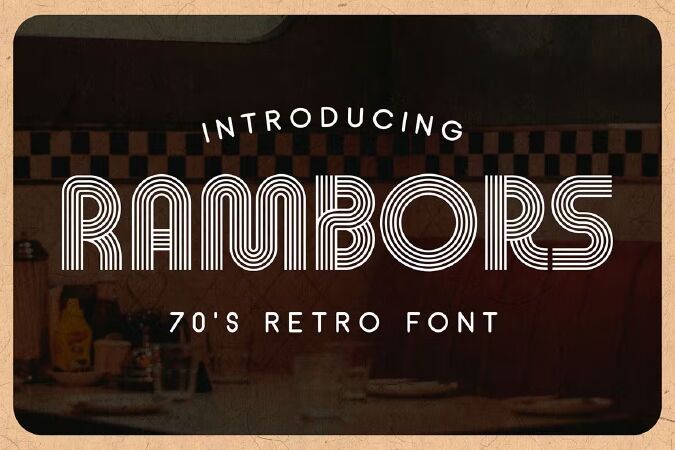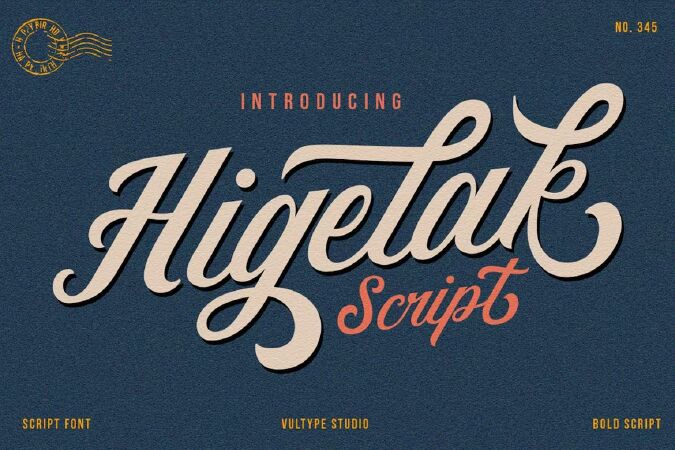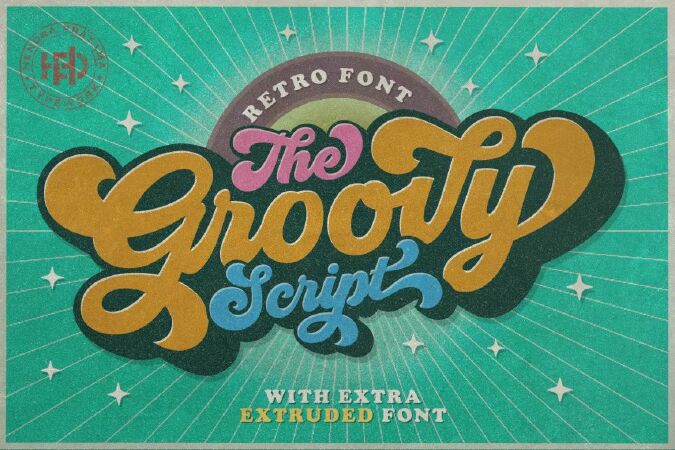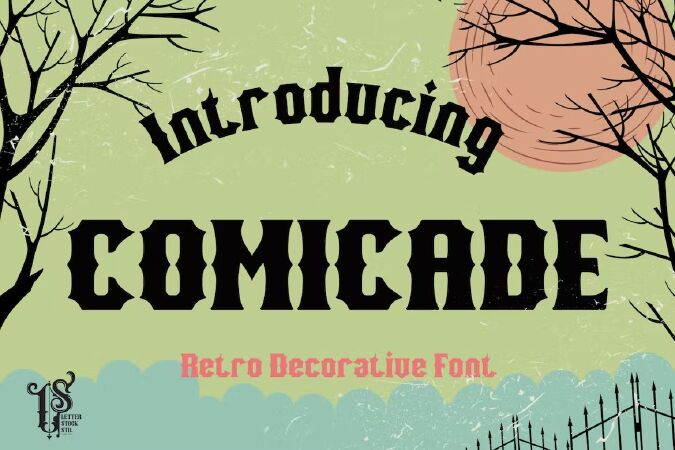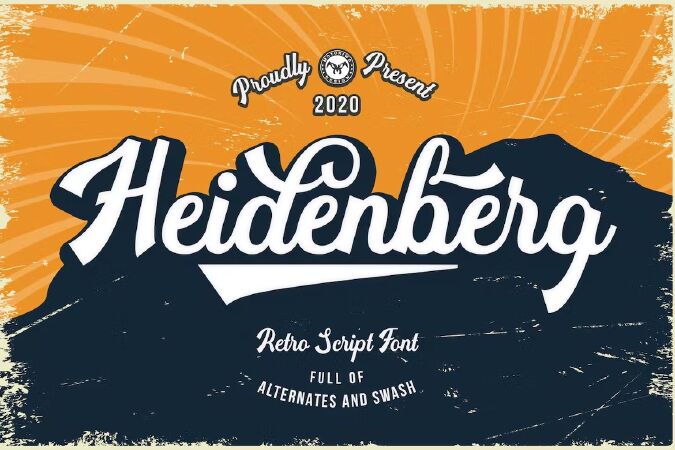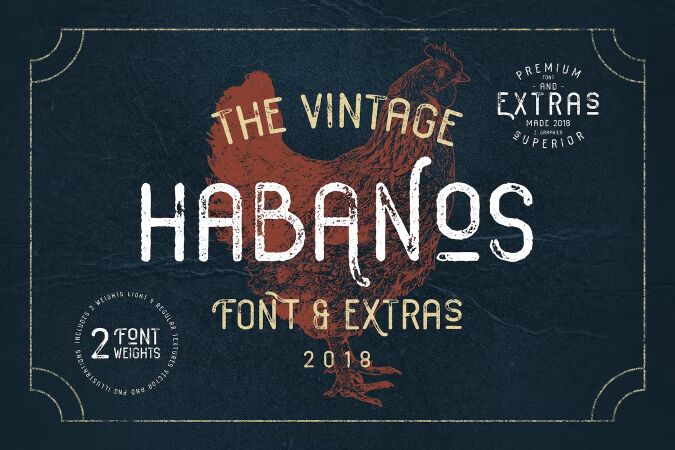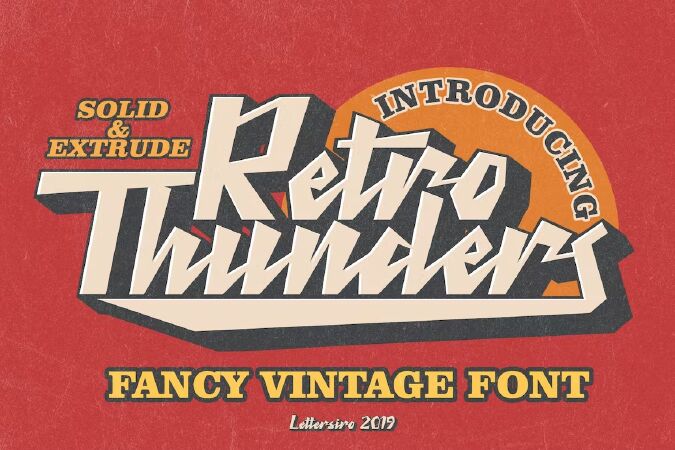
Top 10 best retro fonts for designers in 2023
Best retro fonts for designers list of 2023. They have a vintage style and will add a unique feel to your upcoming projects. In this list you will find the best retro fonts, calligraphy fonts, cursive fonts, handwritten fonts, and more. so you can create the best vintage letter design. They will look great on the headlines in your posters, flyers, motion graphics, and stickers. Ideal for logos, handwritten quotes, product packaging, headers, posters, merchandise, social media & greeting cards.
1 Groovy - Retro Font
Groovy is one of my fonts based on a hand lettering project in 2017. It was very inspired from the famous retro typography designs in late 60's untill 70's. Groovy also comes with extra Extruded Font version. So you won't need extra effort for create an extrude effect for this font. This mean it will saves your time.
Total 593 glyphs was crafted inside Groovy. Some OpenType Features also added to this bold and sporty font. The Features includes: Stylistic Alternates, Swashes, Ligatures, Contextual and Stylistic Set. You can pick the alternate for subtitution up to 21 variant per-letter.
2 Rambors - Retro Font
Introducing Rambors, a multiline display font inspired by the 70s design which visualizes a futuristic touch and fun graphic. A very nostalgic typeface, perfect for your modern-futuristic design and contemporary style.
Rambors is looks very catchy on headlines in your poster, flyer, motion graphic, and sticker. This font is an all-caps font with different uppercase and lowercase, it gives you a lot of possibilities to explore many alternatives of design. Also completed with alternates characters.
3 Almonde Retro Font
Almonde Font is an elegant and stunning retro display font. It features a vintage style and will add a unique feel to your upcoming projects. Get inspired by its authentic feel and use it to create gorgeous event promotions, beautiful logo art, eye-catching social media posts, and elegant greeting cards.
4 Higelak Retro Font
Higelak Vintage Retro Script Inspired by Modern Vintage & Retro style and combination with old american traditional style.
Higelak Script allowing you to create hand lettering is an instant and a super handy set of bonus Swash. Ideal for logos, handwritten quotes, product packaging, header, poster, merchandise, social media & greeting cards.
5 Roghust - Retro Font
Presenting Roghust - Retro Font is suitable for badge, logo, branding, magazine, poster and etc. Our fonts have Uppercase & Lowercase, Numeral & Punctuation, Multilingual support and Opentype Features. For Amazing designs you can mix with other fonts as a complement.
6 Comicade - Retro Font
Comicade Font
This pair was inspired by the retro cartoon poster design that i saw on some coffee shop, It was crafted by hand specially to add natural handmade feeling in its brand identity than i make it clean with pentool.
Come with Opentype feature with a lot of alternates, its help you to make great lettering. This font is also support multi language.